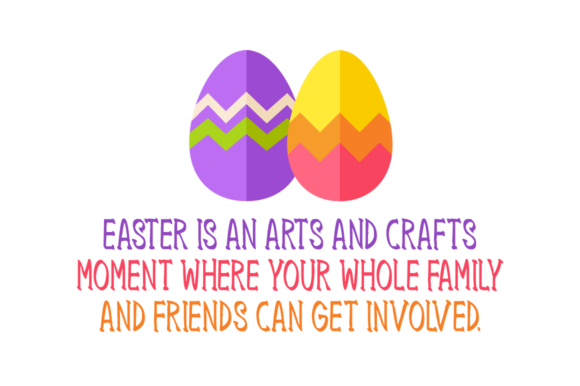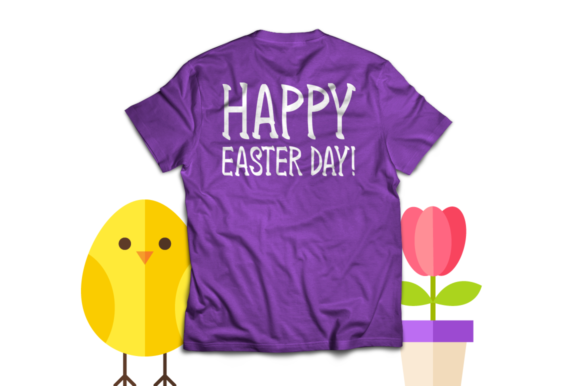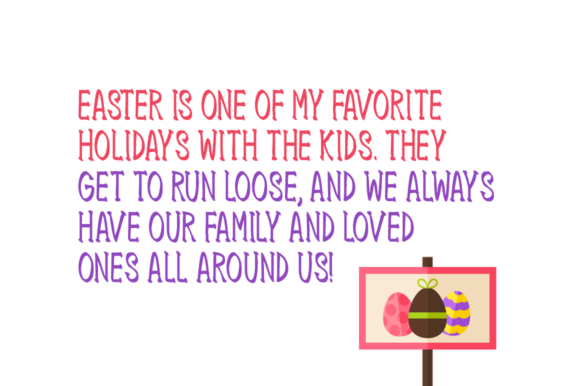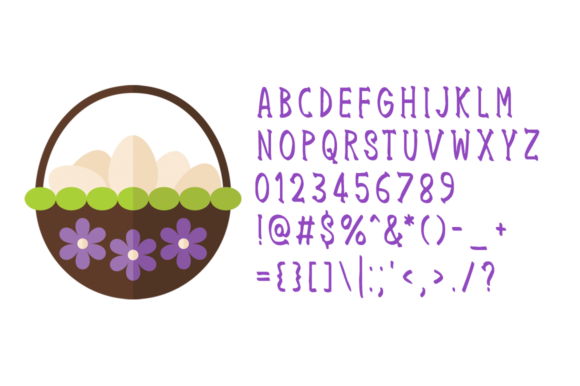
Easter Sunday Font: A Playful Display Font to Elevate Your Designs
Easter Sunday is just around the corner, and what better way to celebrate than with a brand new display font that’s sure to bring a smile to your face? Introducing Easter Sunday Font, a playful and charming typeface that’s perfect for adding a touch of personality to your designs. In this article, we’ll dive into the world of Easter Sunday Font, exploring its features, uses, and benefits for designers and crafters alike.
A Beautifully Crafted Font
Easter Sunday Font is a meticulously crafted display font that’s designed to make a statement. With its unique and playful style, this font is sure to capture the attention of your audience and leave a lasting impression. Whether you’re working on a logo, t-shirt, print design, flyer, or music cover, Easter Sunday Font is the perfect choice to add a touch of whimsy and fun to your project.
Key Features of Easter Sunday Font
- Playful and Unique Style: Easter Sunday Font boasts a one-of-a-kind design that’s sure to stand out from the crowd.
- Display Font: This font is specifically designed for display purposes, making it perfect for headlines, titles, and short texts.
- High-Quality Design: Easter Sunday Font is crafted with attention to detail, ensuring a high-quality design that’s both visually appealing and legible.
- Versatile: This font can be used for a wide range of design projects, from logos and t-shirts to print design, flyers, and music covers.
Uses for Easter Sunday Font
Easter Sunday Font is an incredibly versatile font that can be used for a variety of design projects. Here are some ideas to get you started:
- Logos: Create a memorable logo for your business or brand with Easter Sunday Font.
- T-Shirts: Design eye-catching t-shirts for Easter or any other occasion with this playful font.
- Print Design: Use Easter Sunday Font for brochures, posters, and other print materials to add a touch of personality.
- Flyers: Create attention-grabbing flyers for events, promotions, or announcements with this font.
- Music Covers: Add a playful touch to your music covers or album art with Easter Sunday Font.
Easter Sunday Font offers a range of benefits for designers and crafters, including:
- Time-Saving: With Easter Sunday Font, you can quickly and easily create stunning designs without spending hours on typography.
- Unique Designs: This font allows you to create unique and eye-catching designs that will set you apart from the competition.
In conclusion, Easter Sunday Font is a playful and charming display font that’s perfect for adding a touch of personality to your designs. With its unique style, high-quality design, and versatility, this font is sure to become a favorite among designers and crafters. Whether you’re working on a logo, t-shirt, print design, flyer, or music cover, Easter Sunday Font is the perfect choice to elevate your project and make it stand out from the crowd.